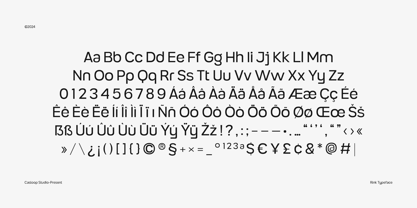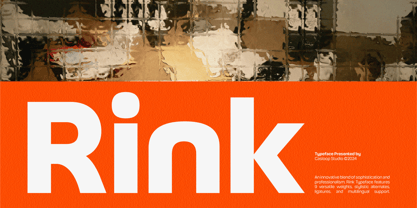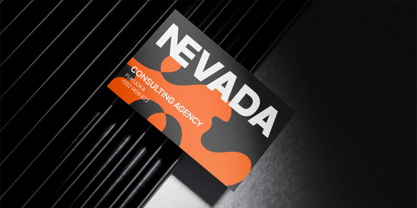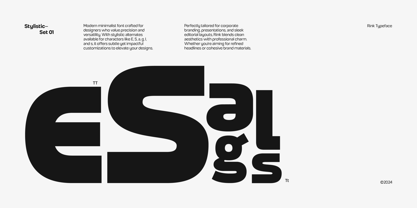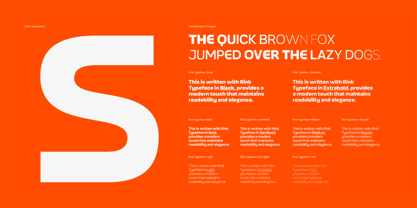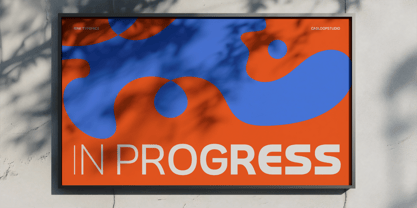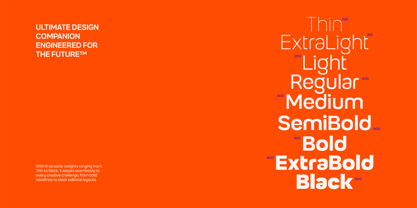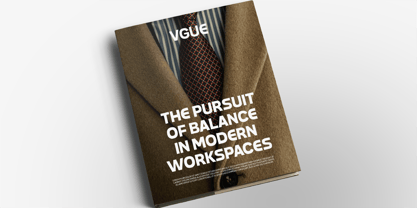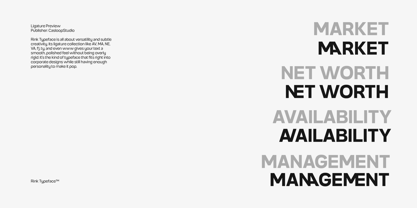
Rink
by Casloop Studio
The Rink Font Family was designed by Wantara Putra and published by Casloop Studio. Rink contains 9 styles and family package options.
Introducing Rink Typeface — The Modern Font That Gets It Done, Effortlessly. Clean, Bold, Versatile — Just Like Your Ideas. Rink isn’t here to play safe. It’s here to make your designs pop, your words resonate, and your visuals hit the mark. With 9 weights (from whisper-thin to shout-out-loud Black + Variable Font), buttery-smooth ligatures, and stylish alternates, Rink adapts to any vibe you’re going for — from sleek minimalism to bold statements.
Rink. Clean. Cool. Unstoppable. Whether you’re branding a startup, leveling up your portfolio, or nailing a poster for your next gig, Rink gives your designs that extra edge. It’s minimal when you need it to be. Loud when it has to be. And always versatile. Upgrade Your Type Game. Go Rink.
Designers: Wantara Putra
Publisher: Casloop Studio
Foundry: Casloop Studio